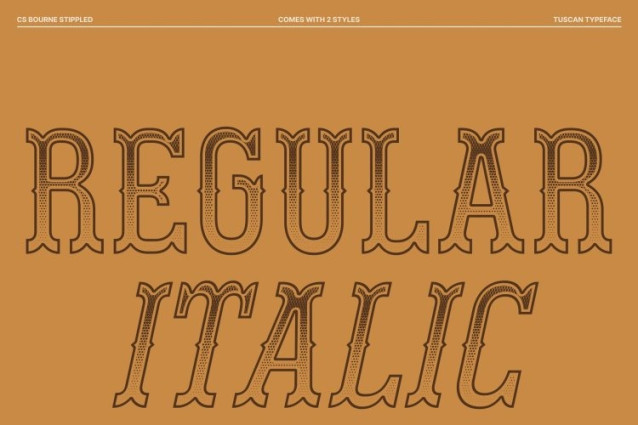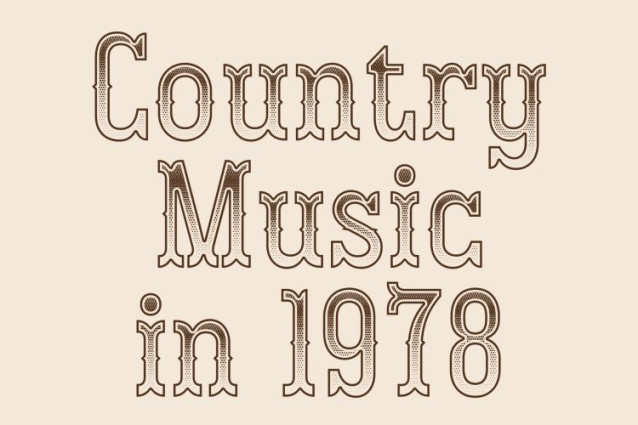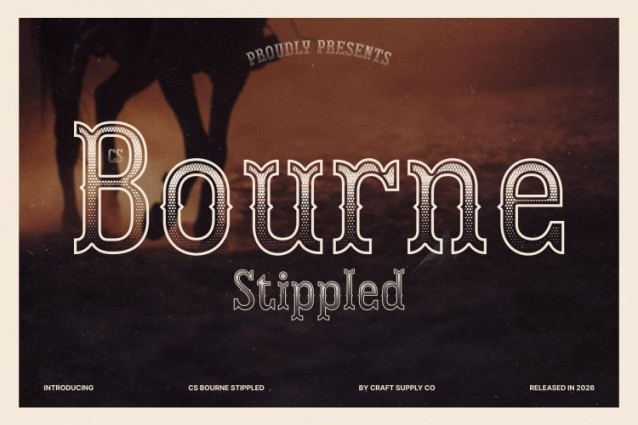
CS Bourne Stippled Font
CS Bourne Stippled Font – This is a captivating display typeface that masterfully blends decorative Tuscan elements with a rich stippled texture. Its prominent serifs and ornate embellishments are enhanced by fine dotted detailing, creating a handcrafted engraved effect that deepens the vintage and retro impression. This combination evokes a strong sense of nostalgia, transporting viewers to an era when typography celebrated intricate craftsmanship and visual richness.
Intriguing Contrast with Textured Character
What sets this Tuscan design apart is its fascinating interplay of thick and thin strokes, now enriched with a delicate stippled finish. The wavy forms and ornamental flourishes gain additional depth through subtle dotwork, giving each letter a textured and artistic personality. This layered visual character makes the font feel expressive and lively, ensuring your message stands out with both style and historical charm.
Perfect for Retro and Elegant Branding
This is especially suited for retro posters, vintage-inspired product packaging, heritage branding, and editorial designs that aim to capture a timeless yet artistic aesthetic. The combination of bold Tuscan structure and stippled texture creates a refined engraved look that elevates any design, leaving a memorable and sophisticated impression.